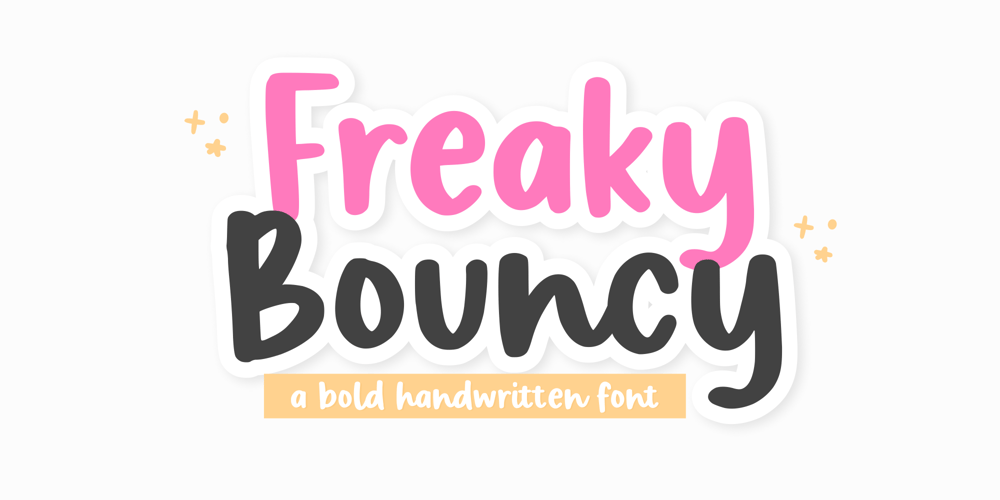
Freaky Bouncy Font Family was designed by Fachrizal Yusuf and published by Allouse Studio. Freaky Bouncy contains 1 styles and family package options. Proudly Presenting, Freaky Bouncy A Bold Handwritten Font.Freaky Bouncy is perfect for any titles, logo, product packaging, branding project, megazine, social media, wedding, or just used to express words above the background.Freaky Bouncy also come with Multi-Lingual Support.Enjoy the font, feel free to comment or feedback, send me PM or email. Thank You!